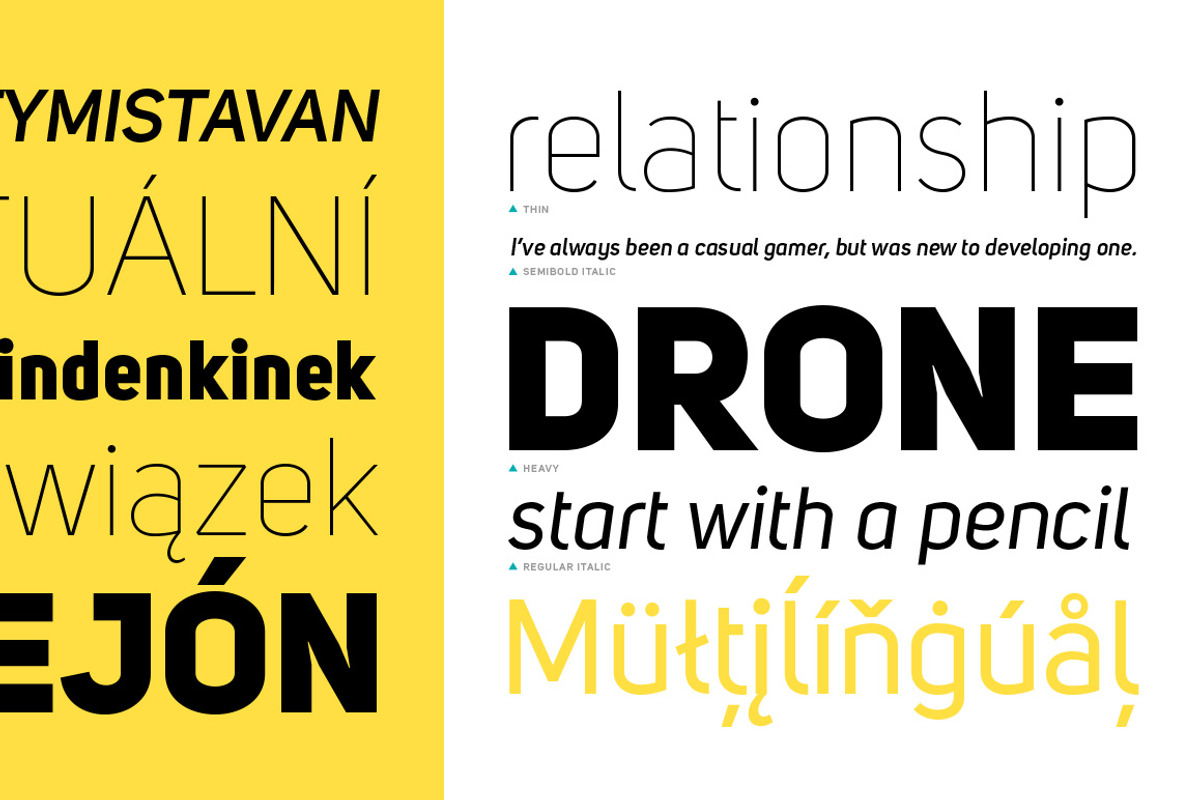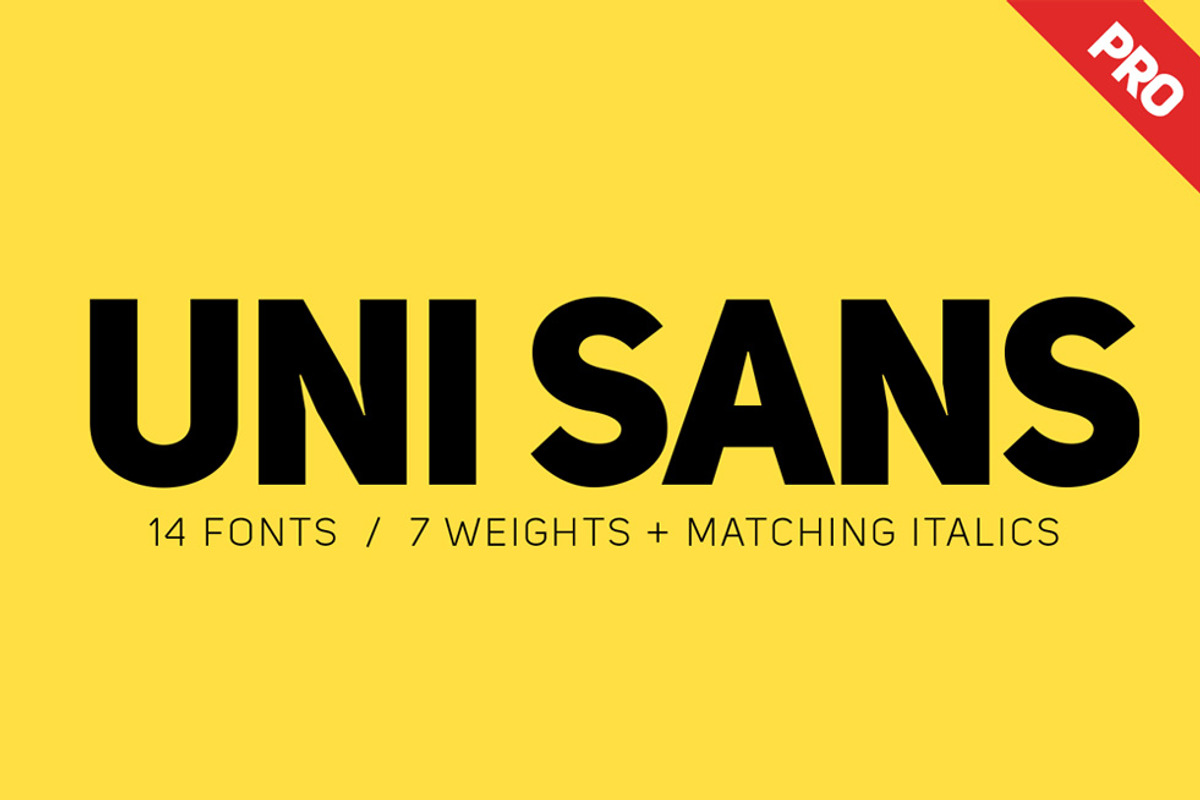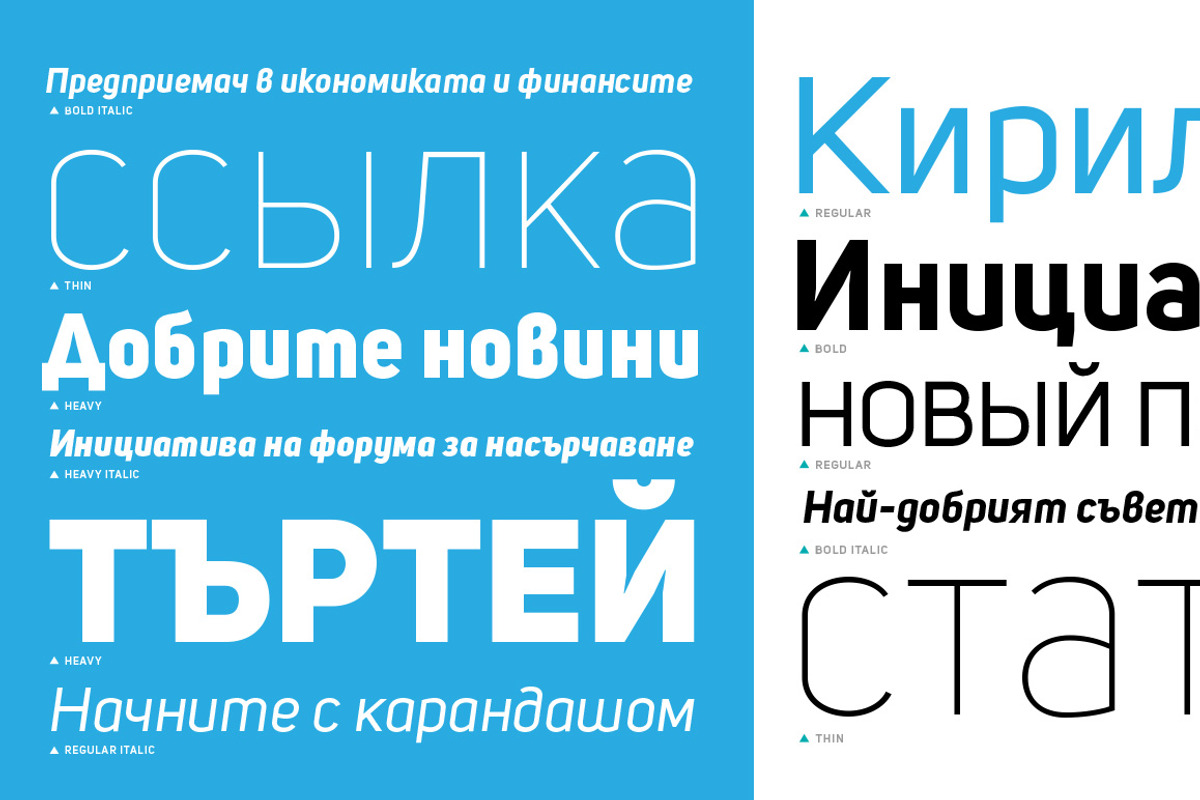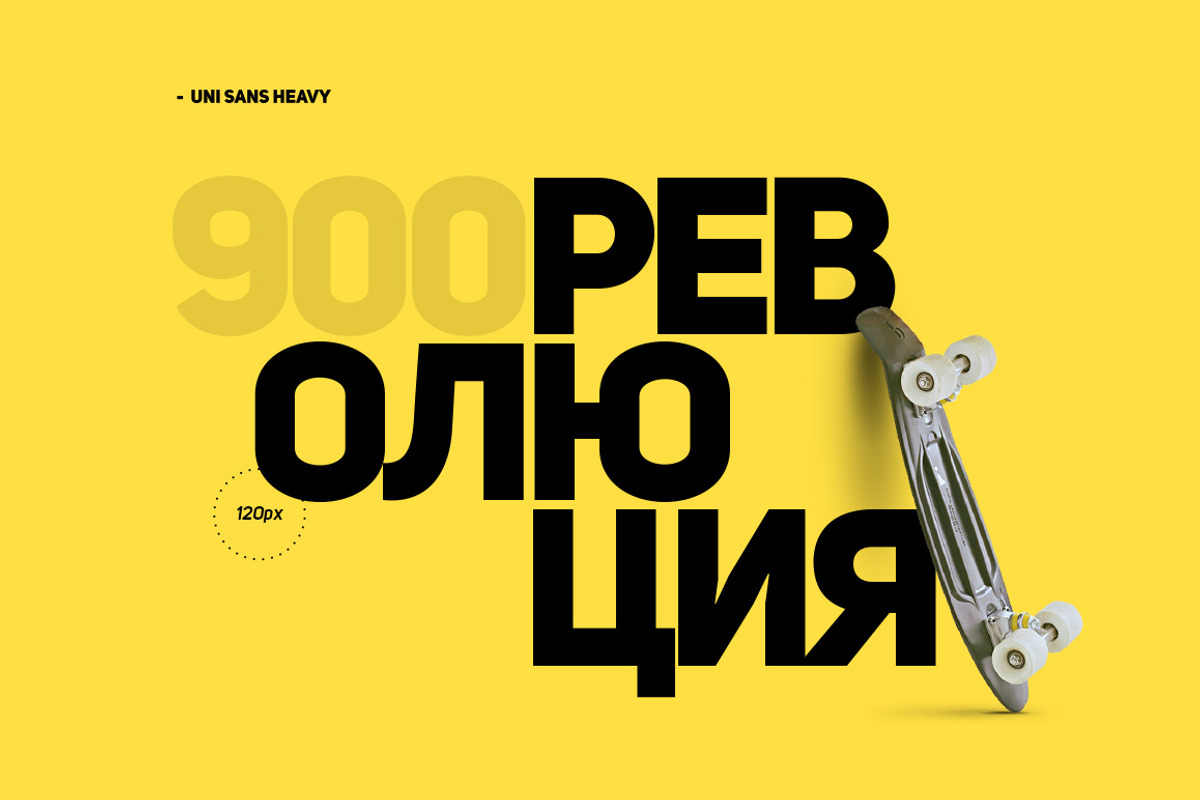
Uni Sans
Uni Sans is a custom sans font which is applicable for any type of graphic design - web, print, motion graphics etc and perfect for t-shirts and other items.